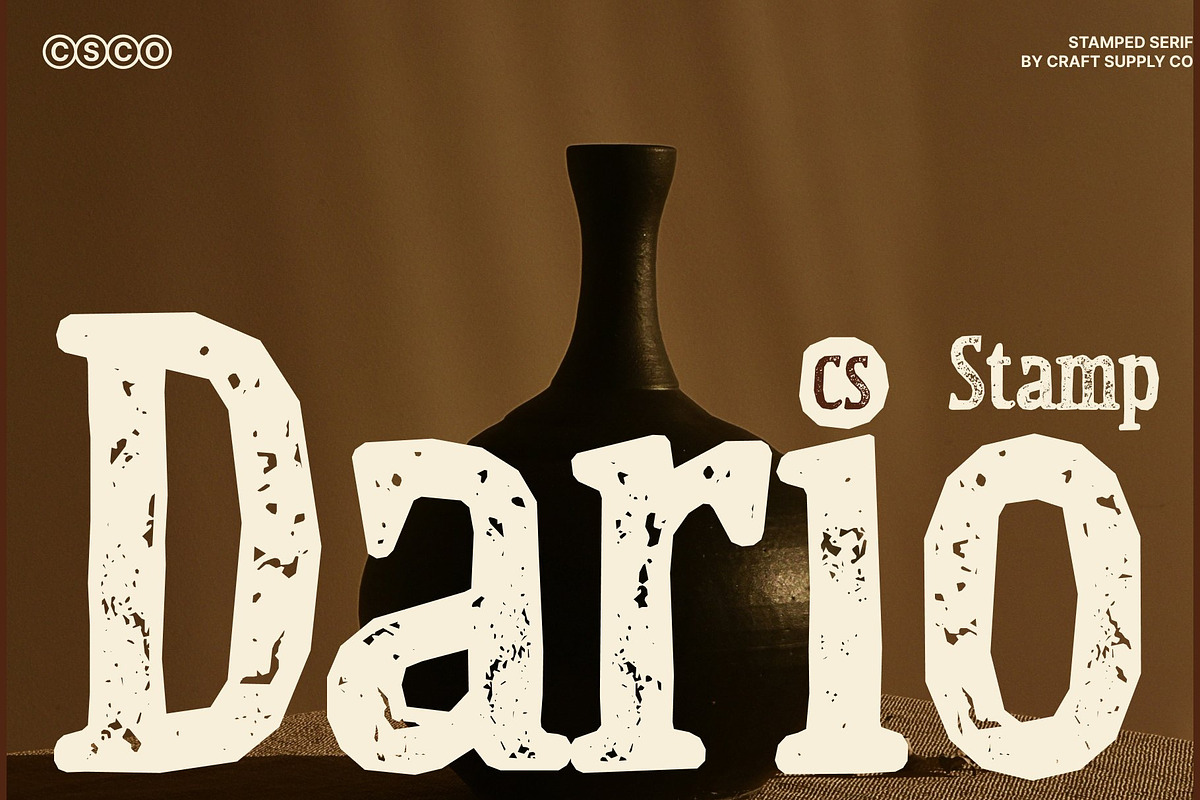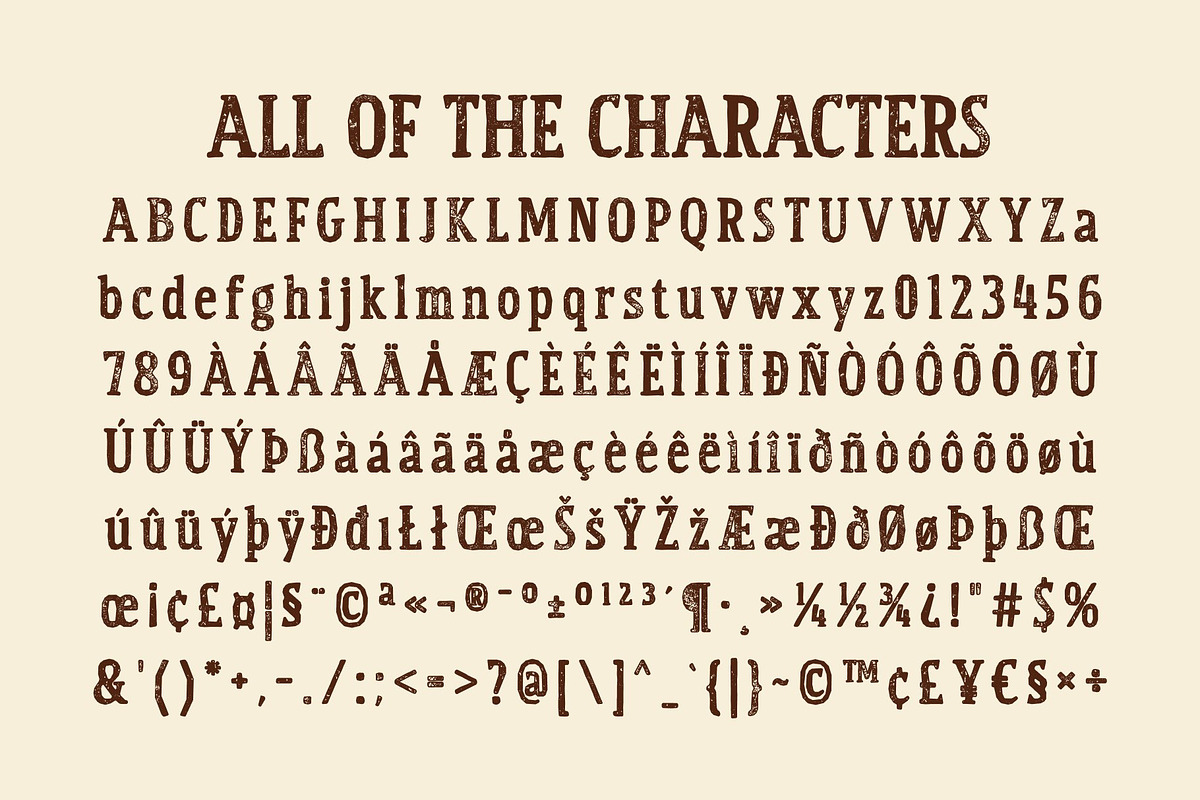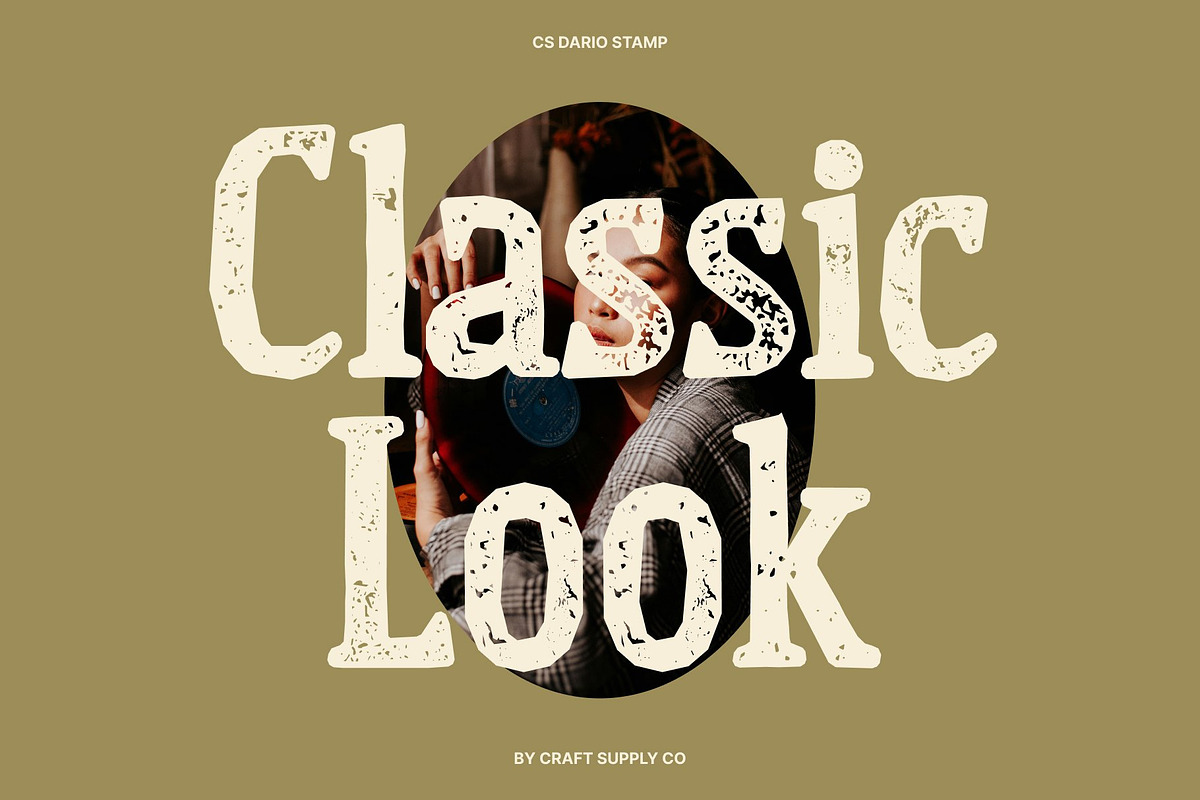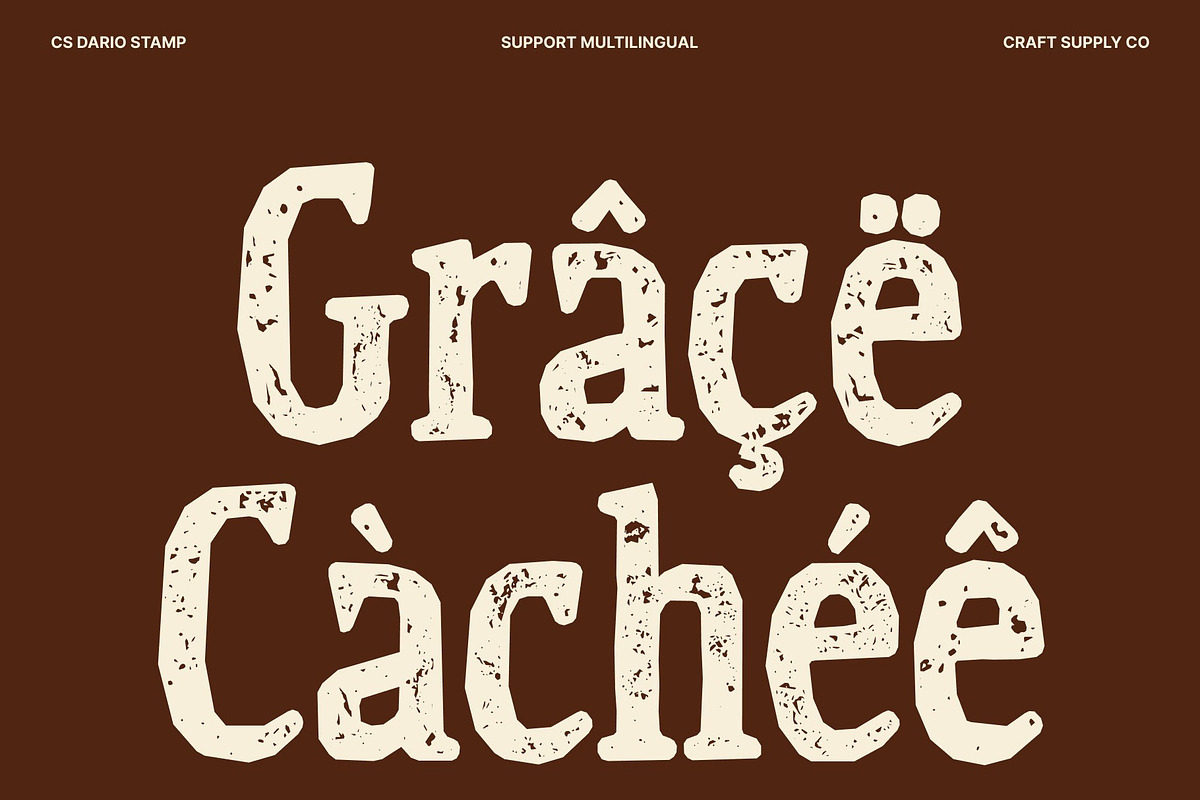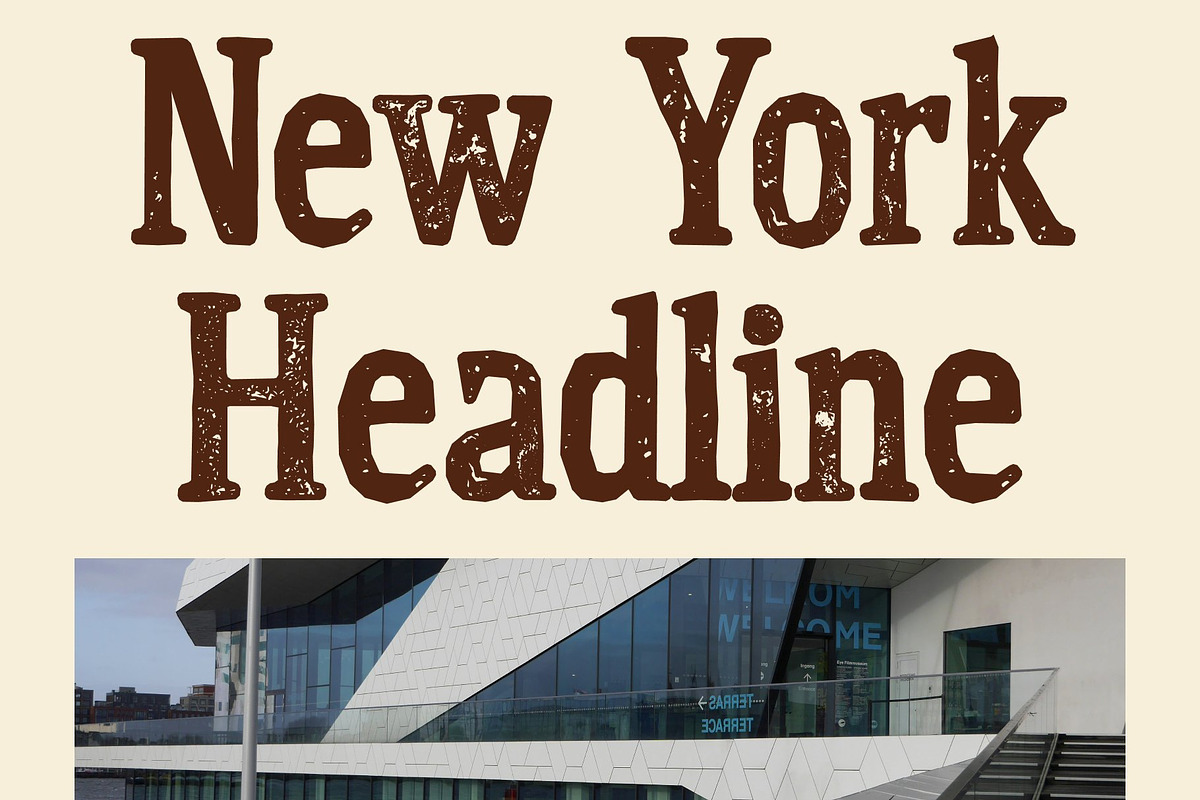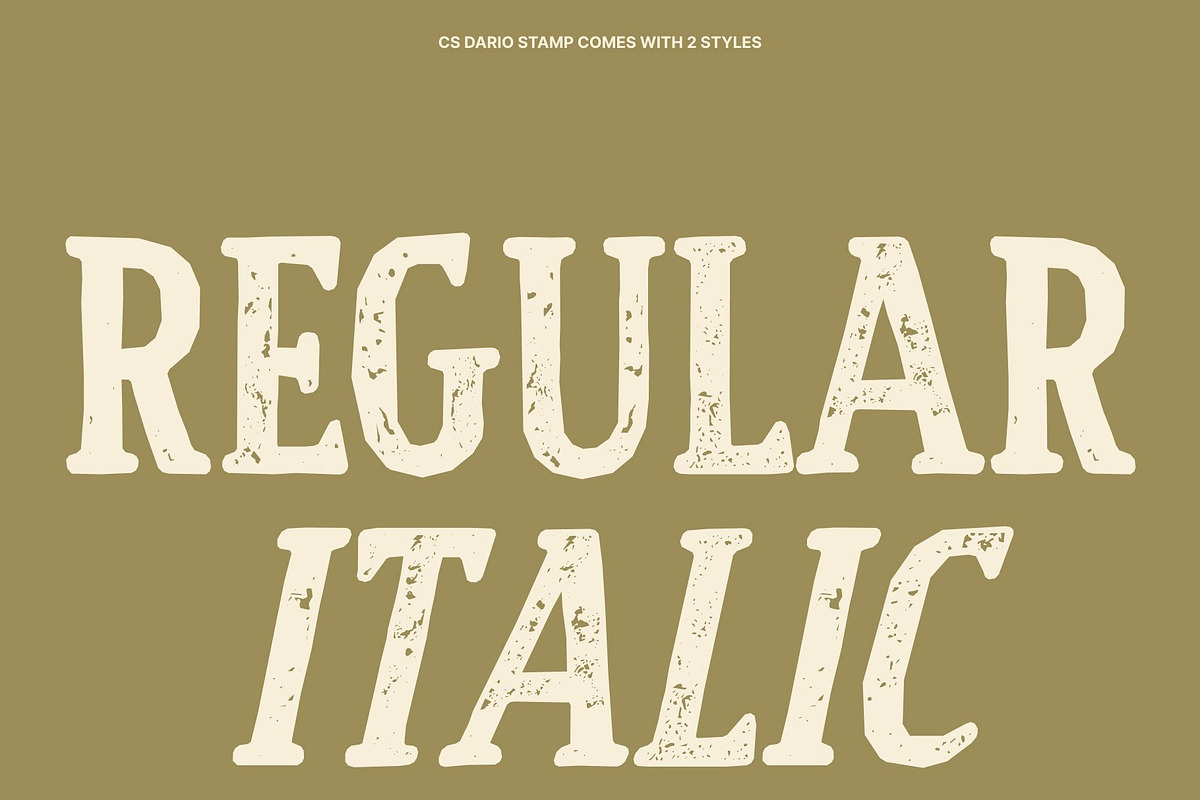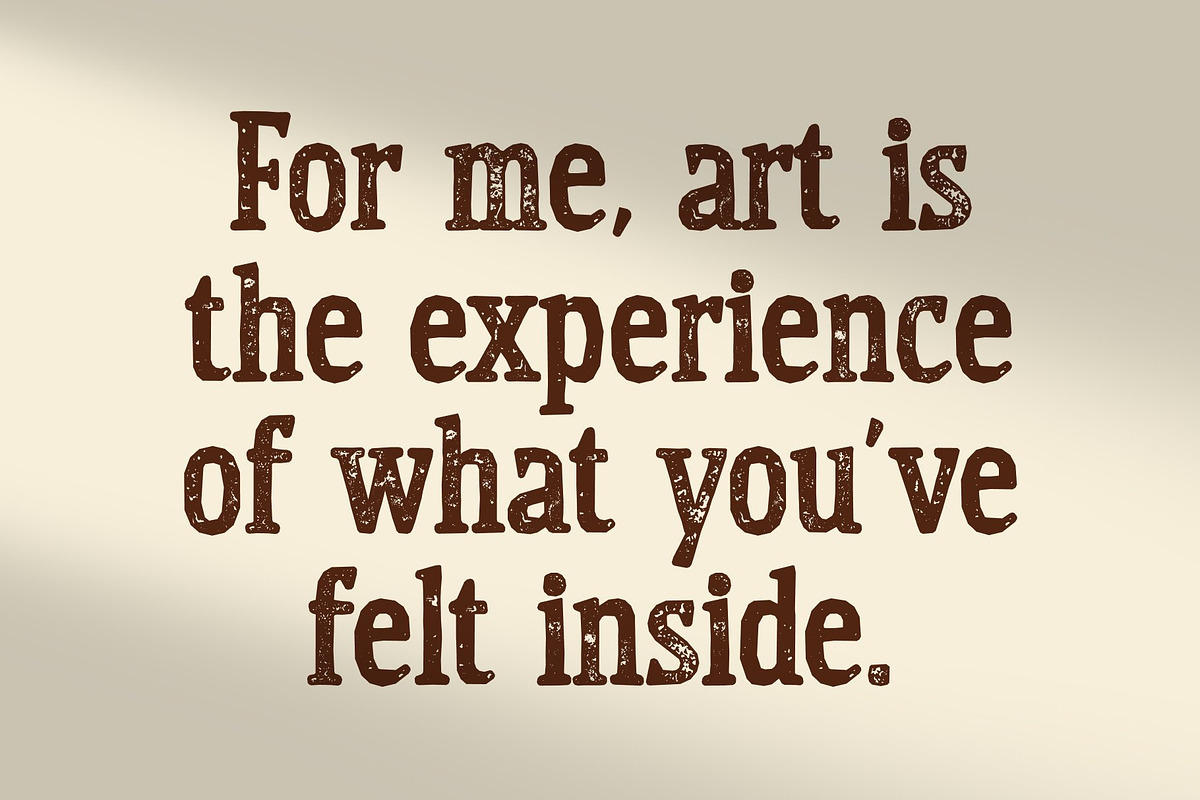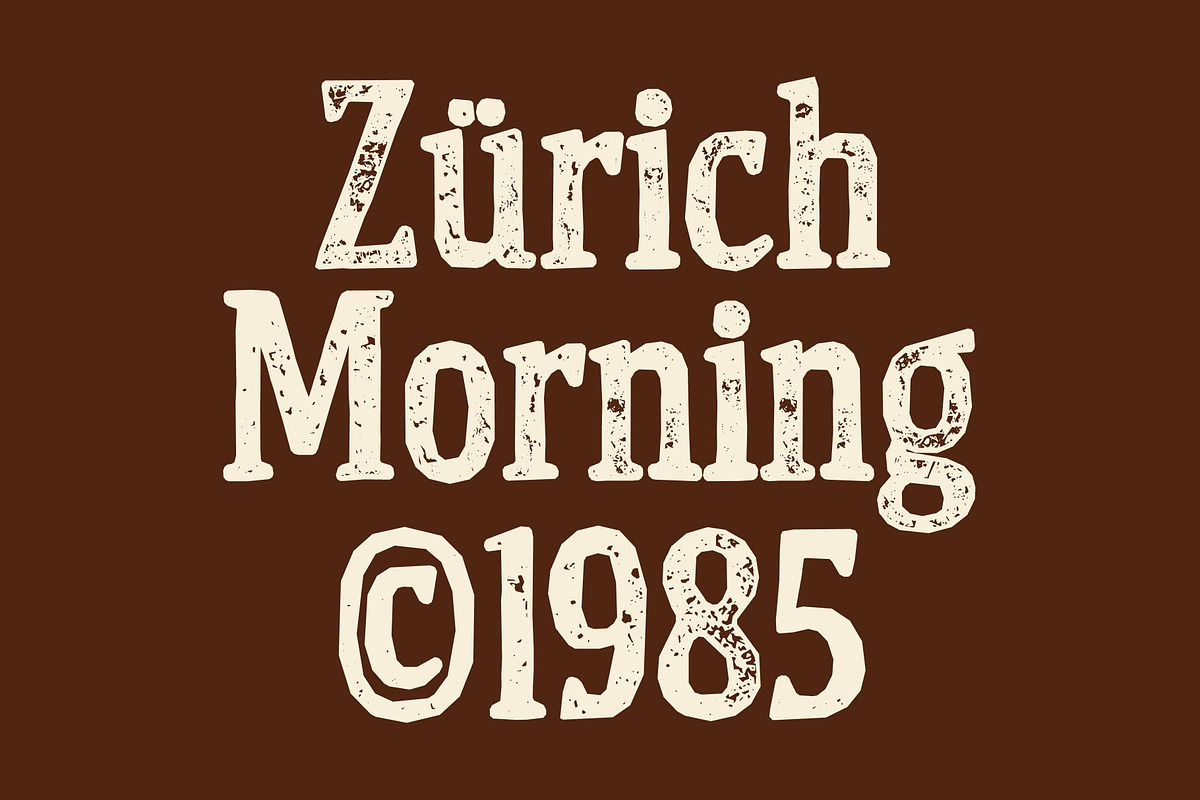
CS Dario Stamp
CS Dario Stamp – Bold Serif with Commanding Vintage Refinement
Modern Serif with Bold, Confident Strokes This is a modern serif font defined by bold, substantial strokes that combine strength with elegance. Its thick letterforms and prominent serifs create a commanding presence, making it an excellent choice for designs that need to communicate professionalism and authority.
Substantial Letterforms for Strong Visual Impact The robust construction of this font delivers a powerful and confident look. Bold shapes and striking serif details give every headline and title a sense of authority, making it ideal for high-profile branding, editorial layouts, and impactful presentations.
Vintage Stamp Texture with Sophisticated Character Enhanced with a subtle stamp effect, this font gains a timeless and artistic texture. The lightly distressed details evoke classic ink impressions, adding depth and vintage charm while preserving the font’s refined and professional appearance.
Perfect for Corporate Branding and High-Impact Design This font is ideal for projects that demand both authority and elegance. Use it for corporate branding, luxury packaging, editorial headlines, posters, and sophisticated marketing materials that require a bold yet refined typographic presence.